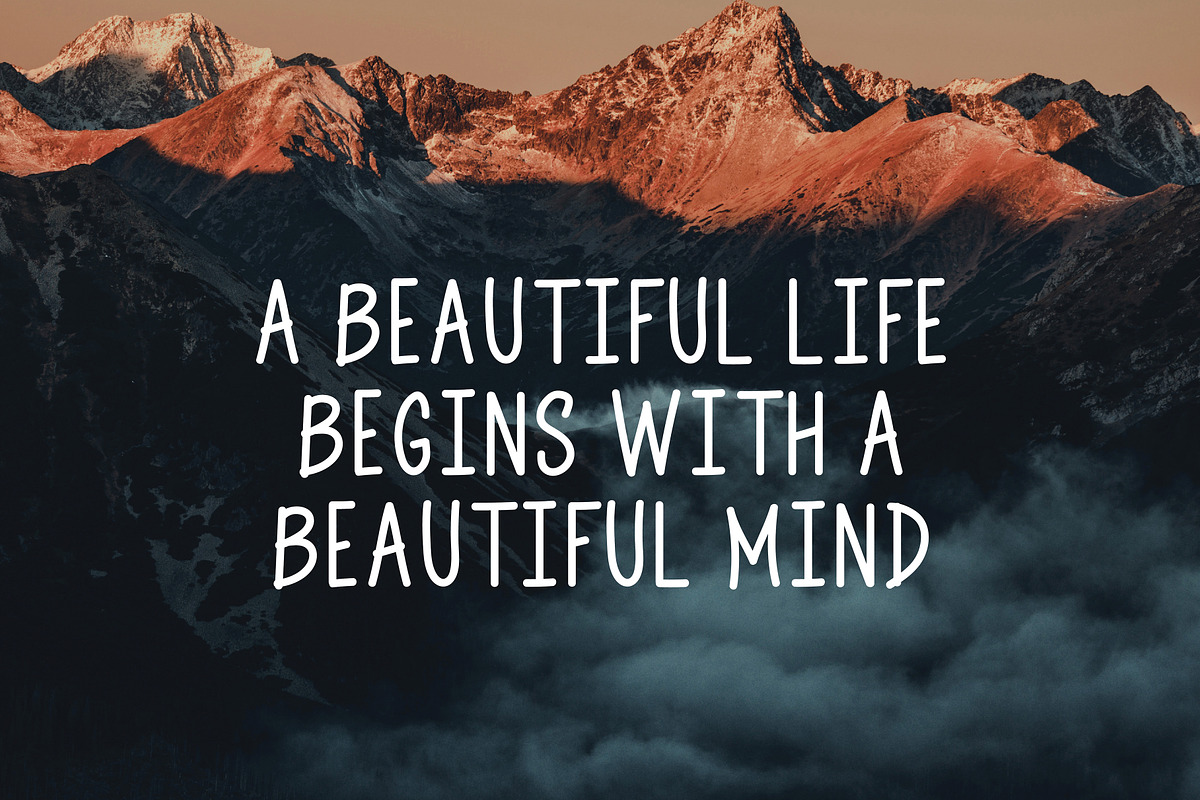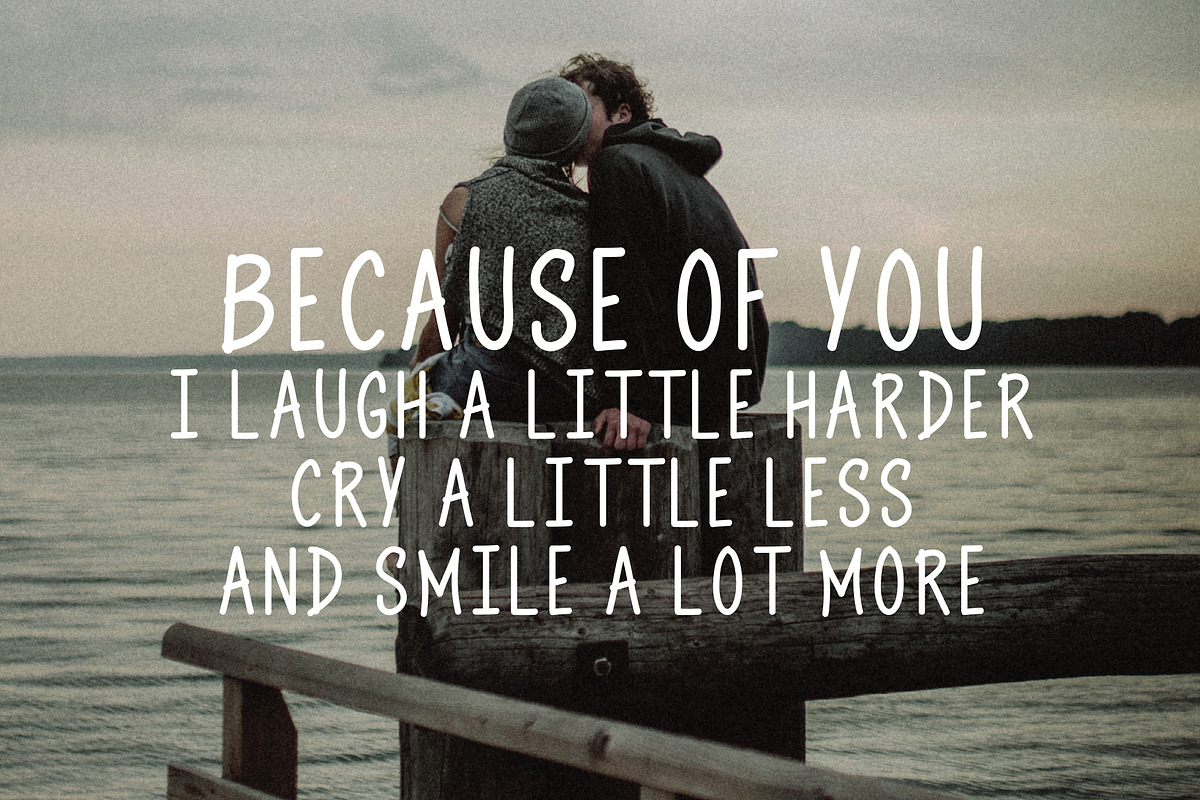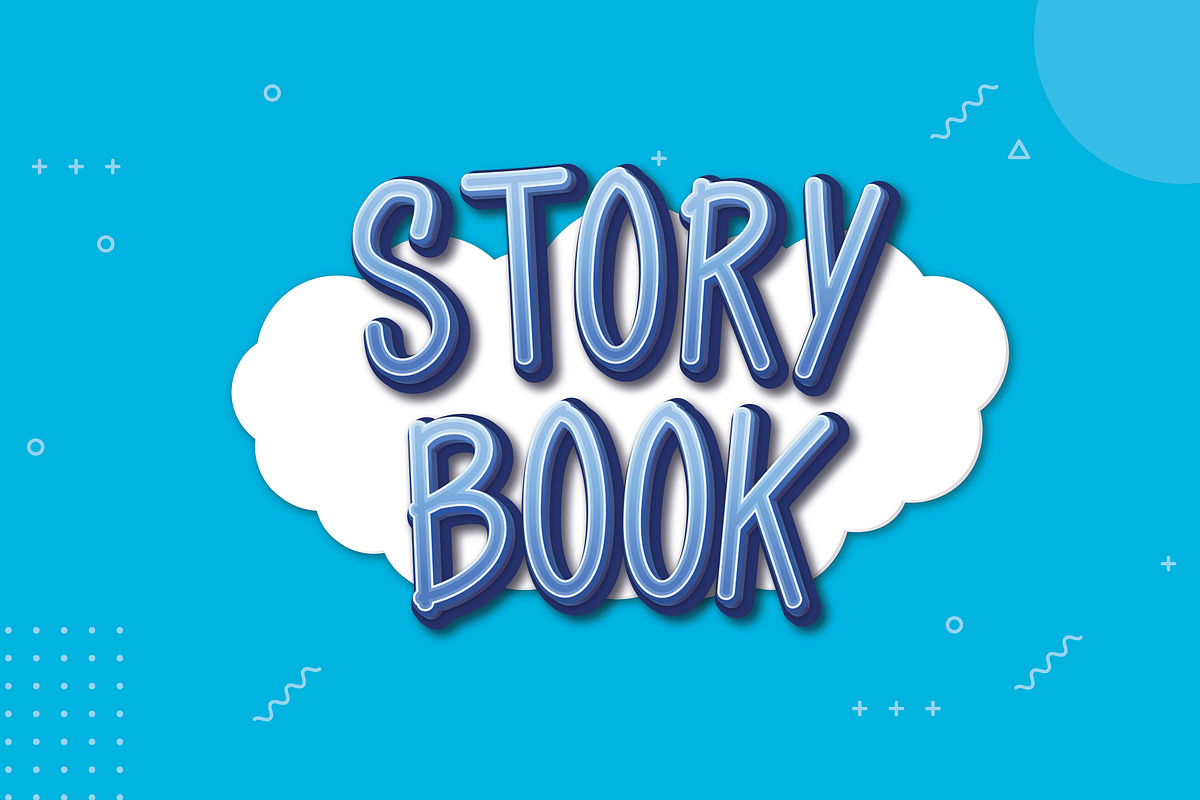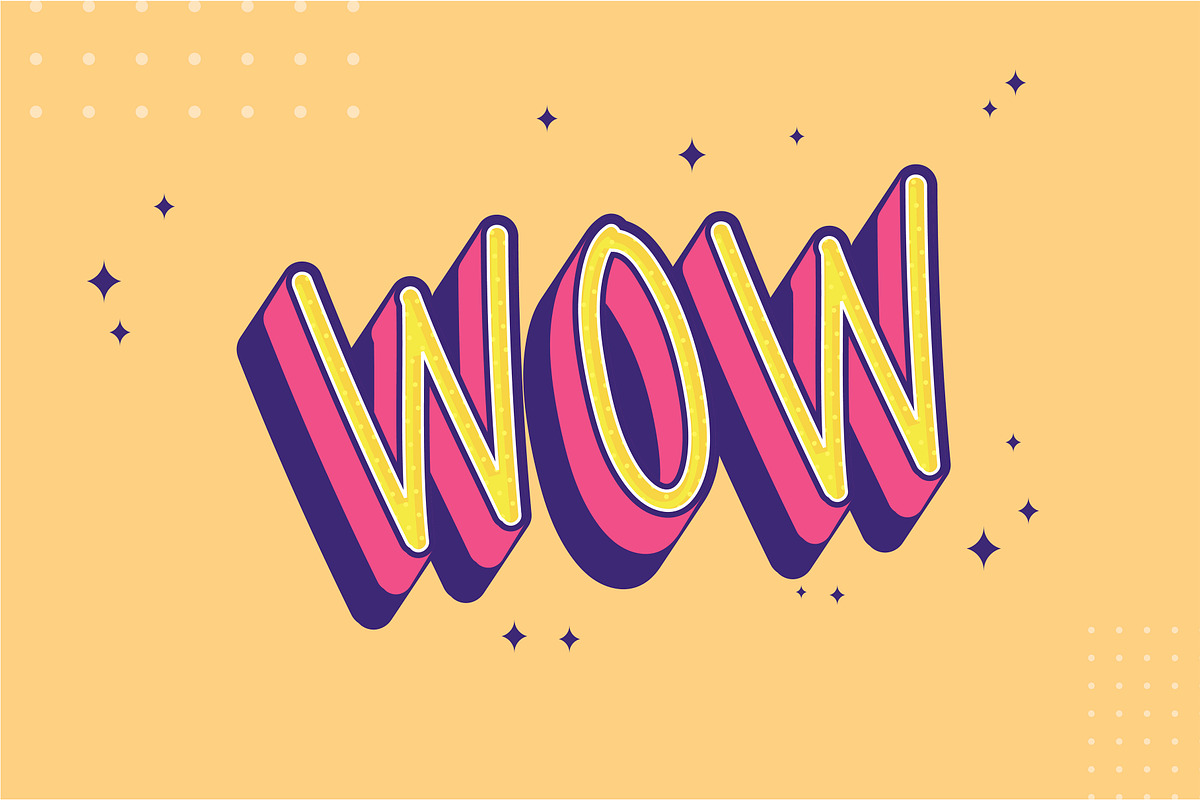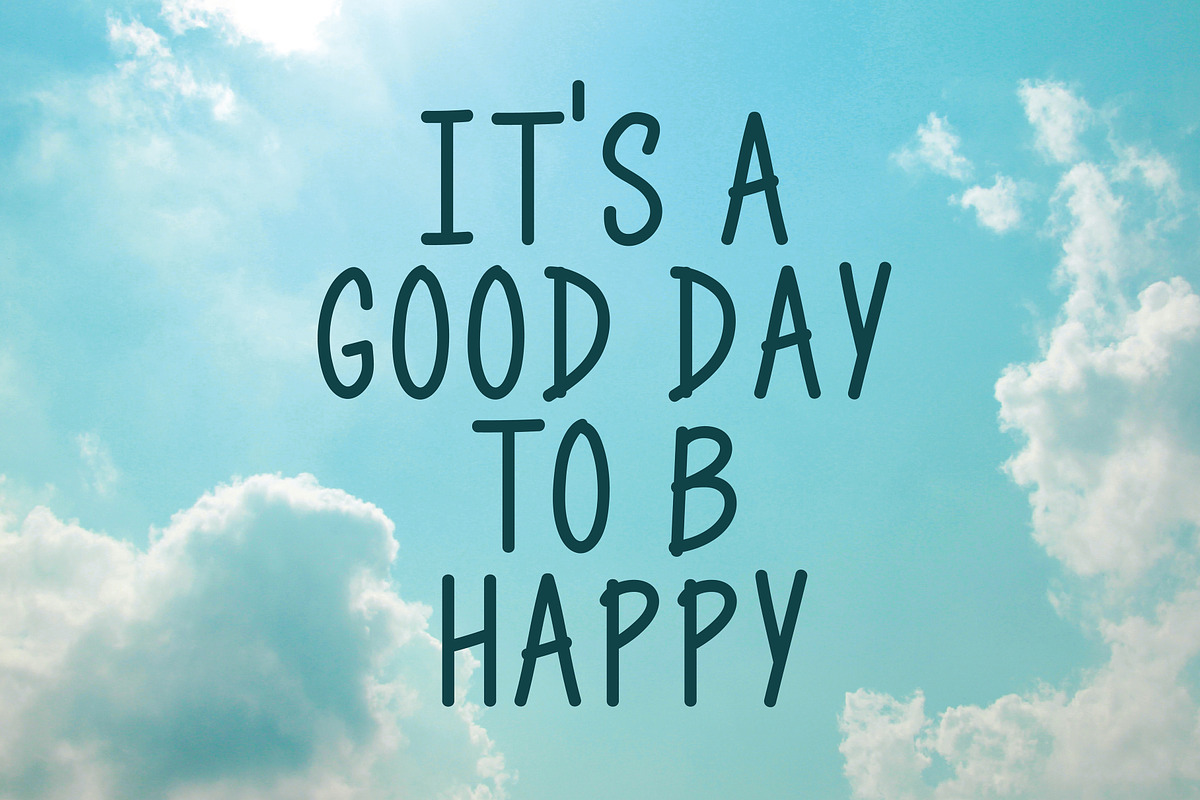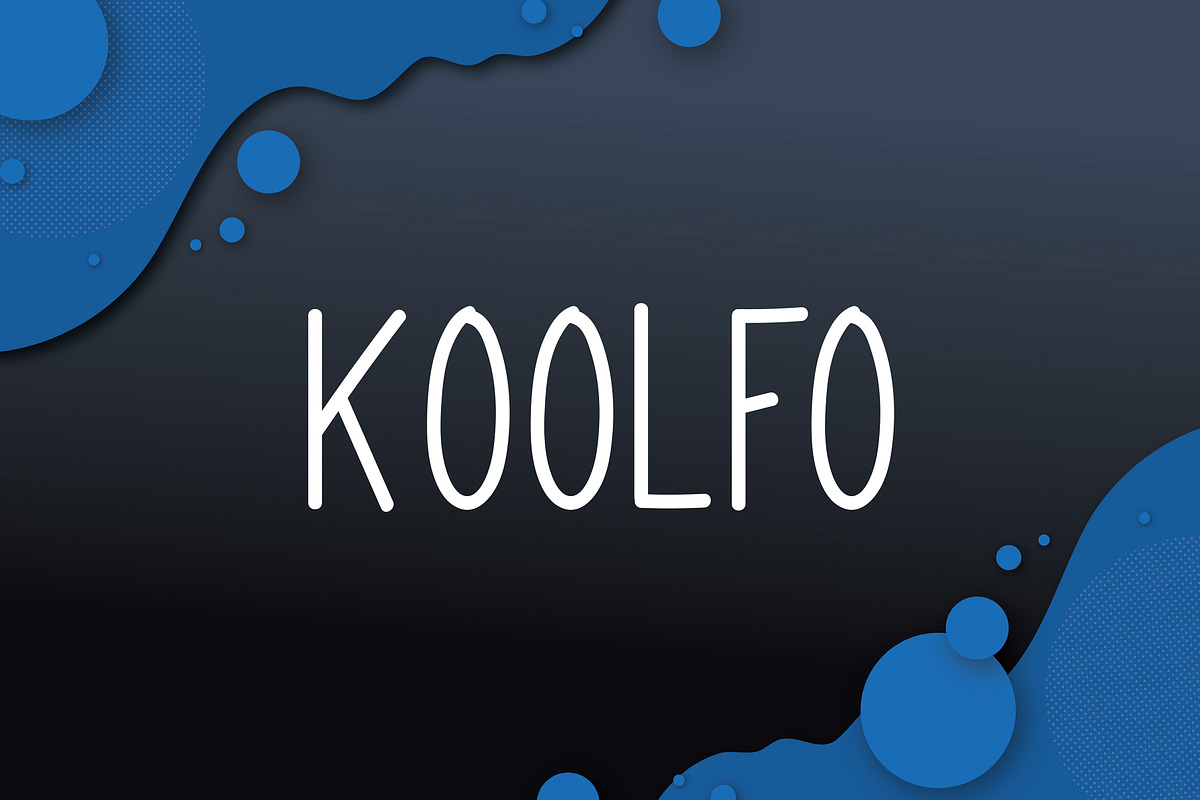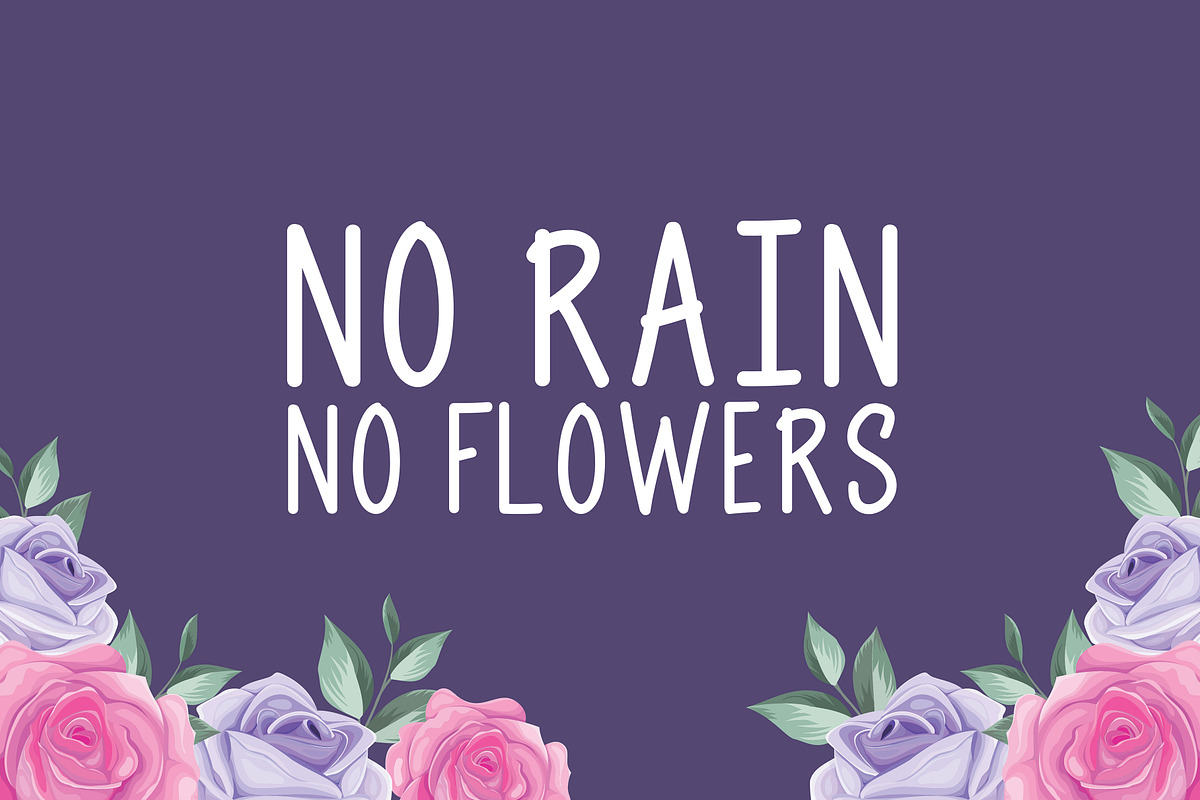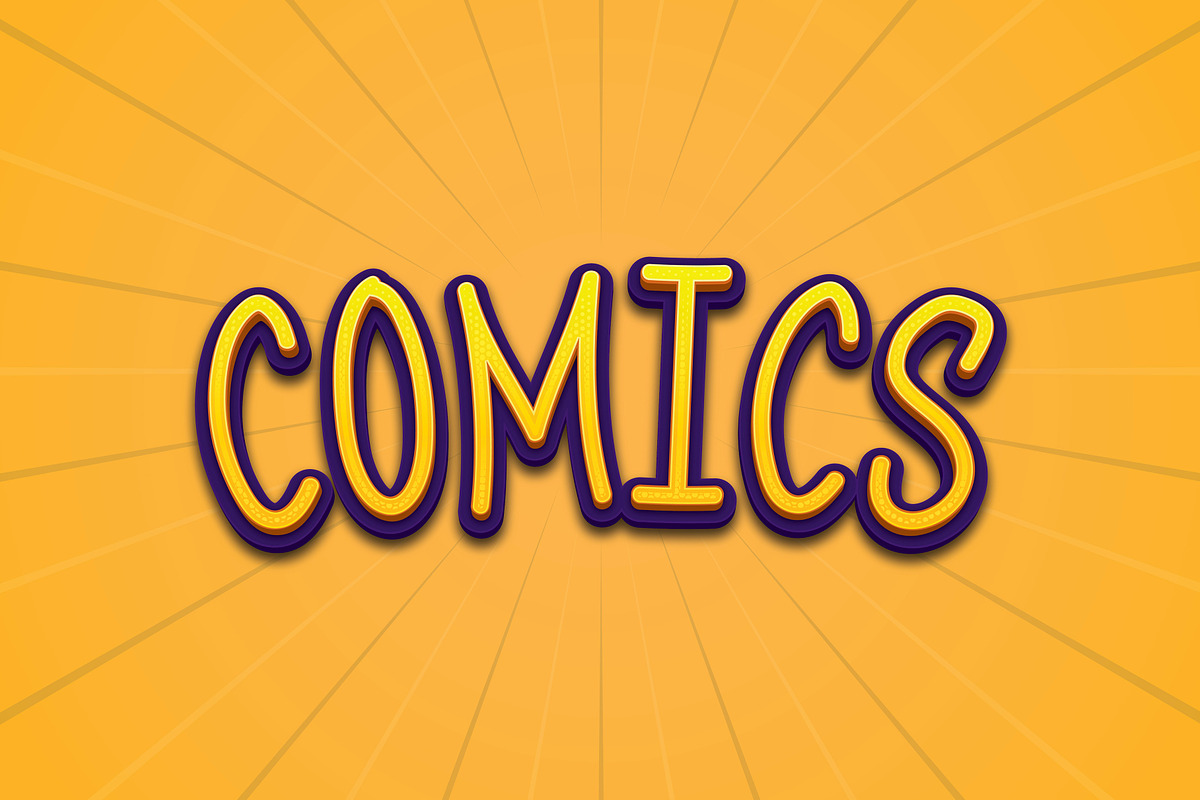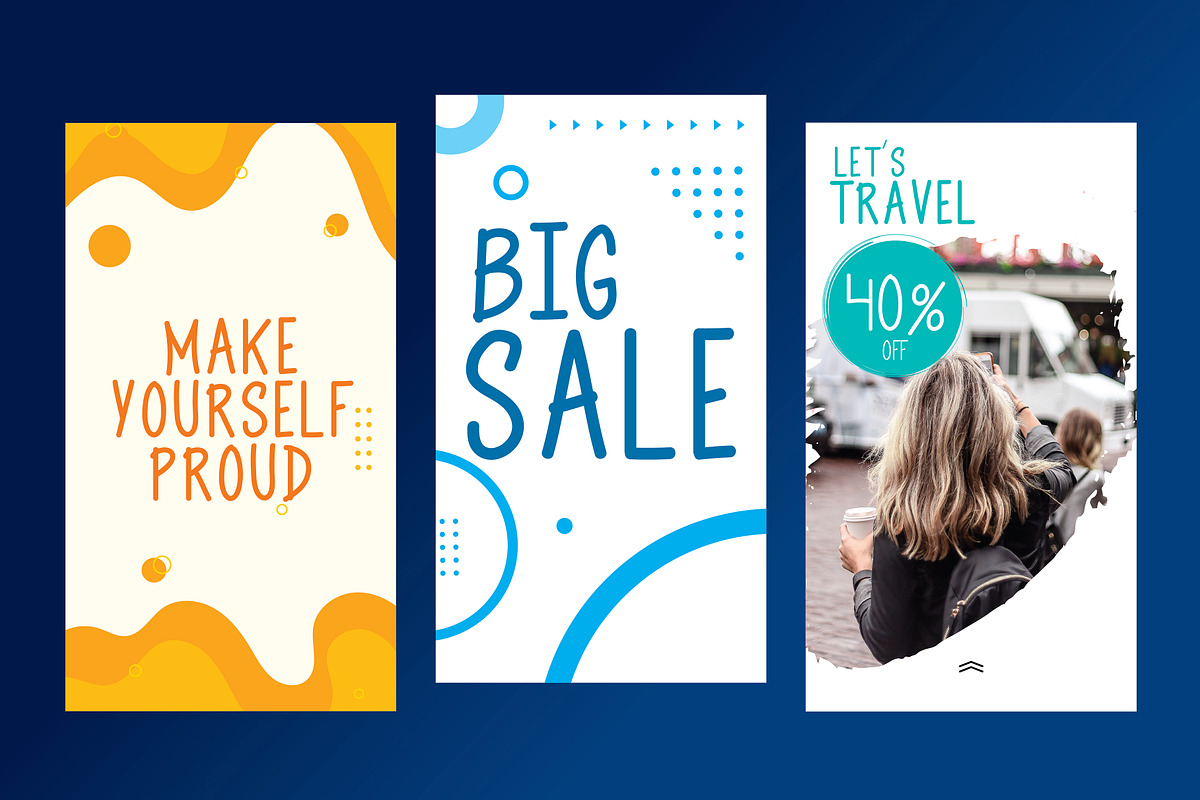
KoolFo
Amazing Kool Font. Use it for any project. Looks beautiful on Instagram stories, Banners, Comics, Quotes, Story Books. Perfect for anything.
- Lower Case and Uppercase Letters, Numbers, & Extended Punctuation